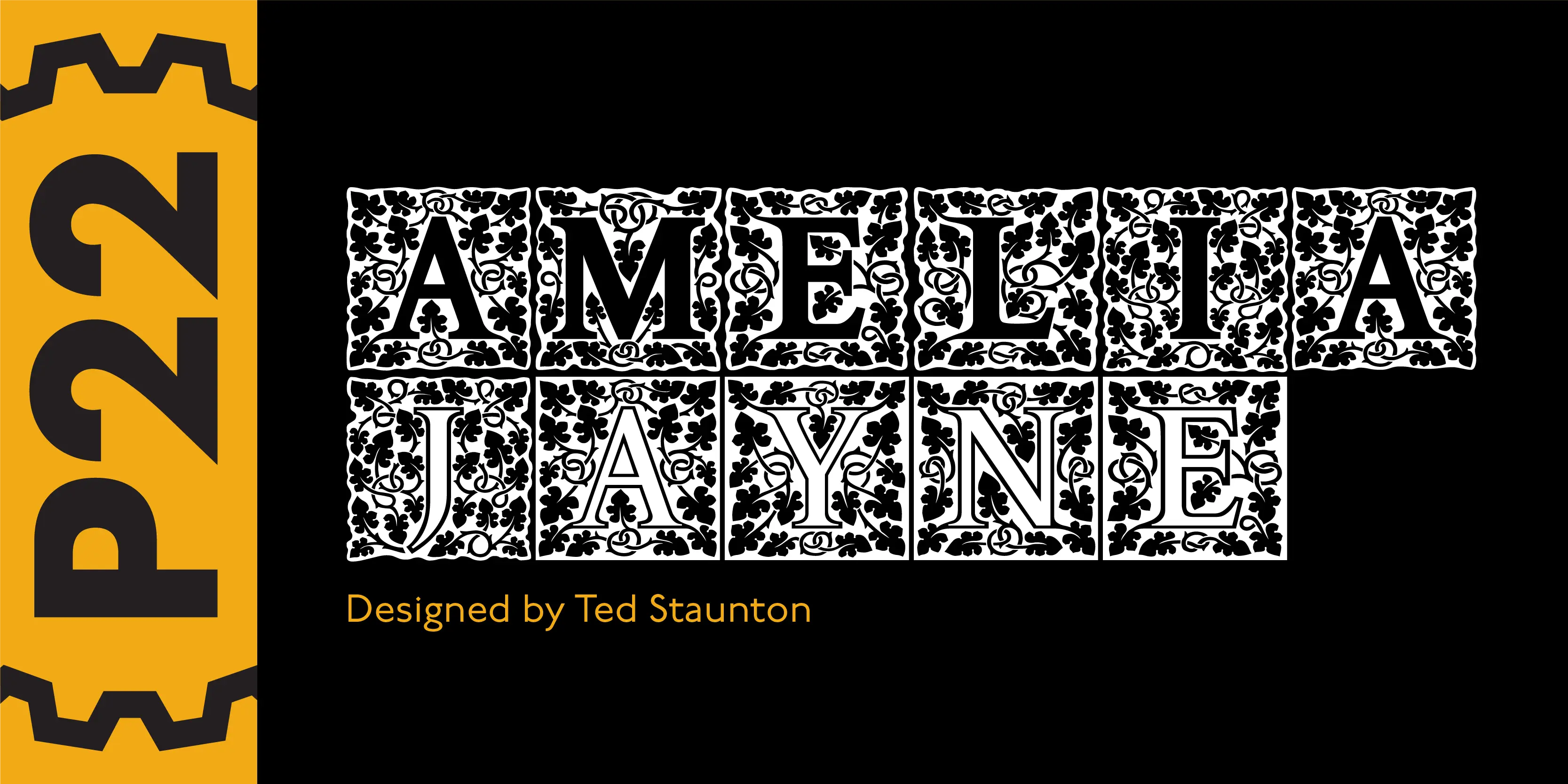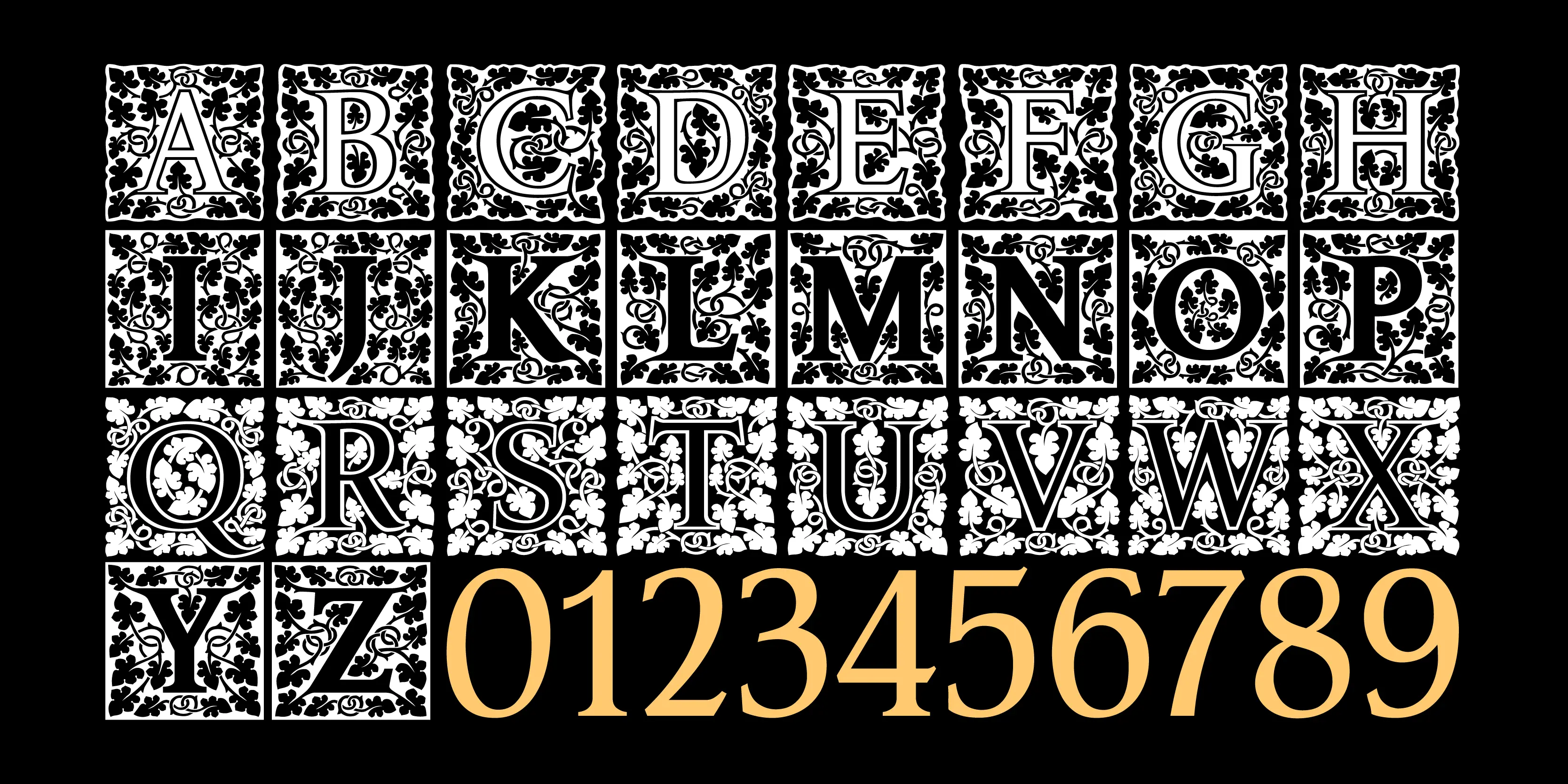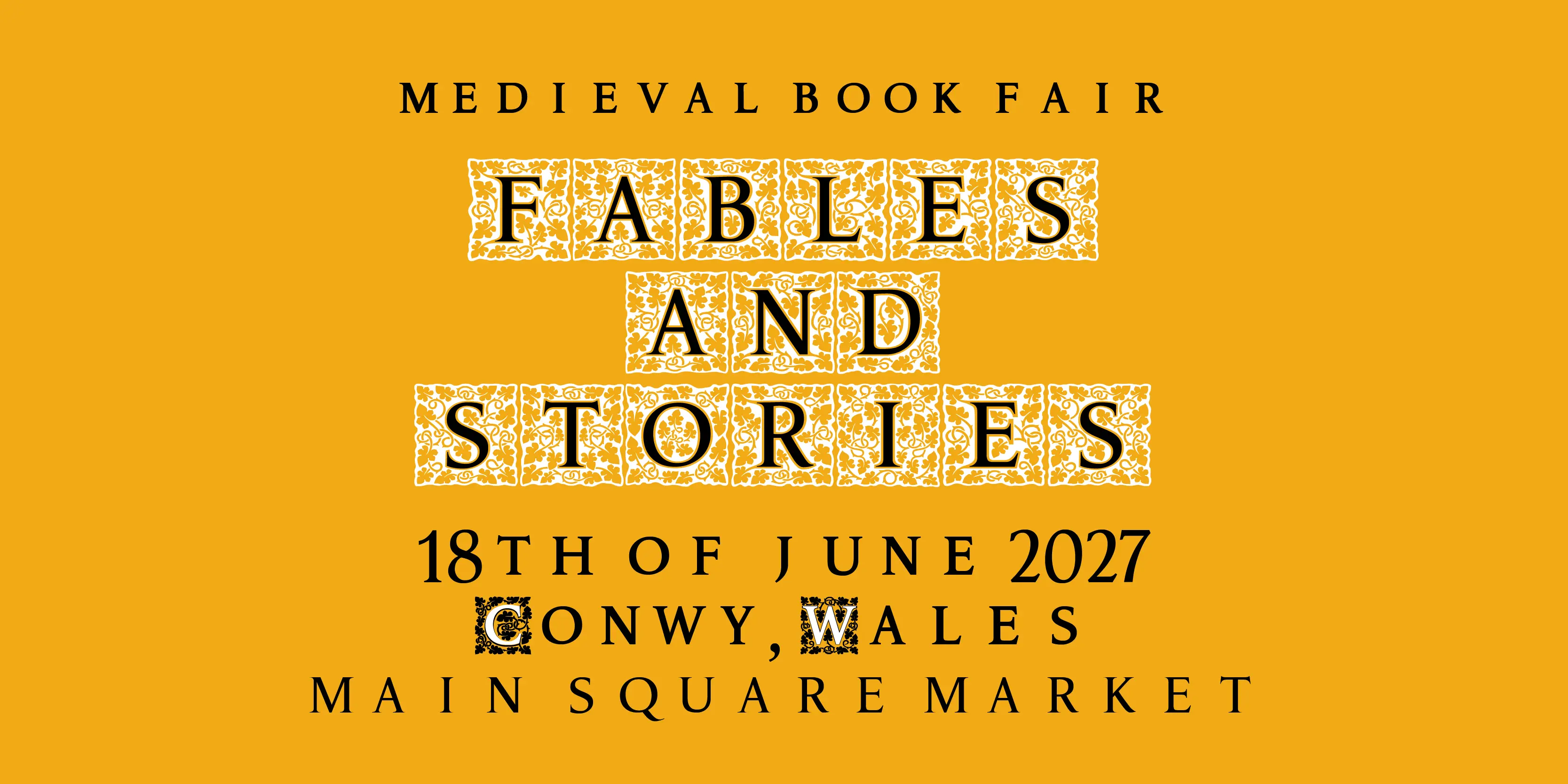
Amelia Jayne Font Family
Amelia Jayne
Amelia Jayne is Ted Staunton’s updated revision and expansion of his own Amelia decorative cap font. Amelia Jayne started as a Roman font to accompany the Amelia initials but has taken on a new life as a Pro Roman font with small caps and several variations of new matching initial companion fonts.